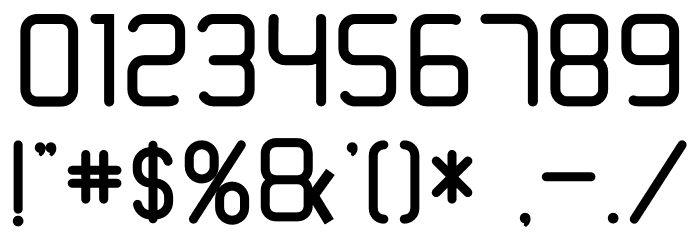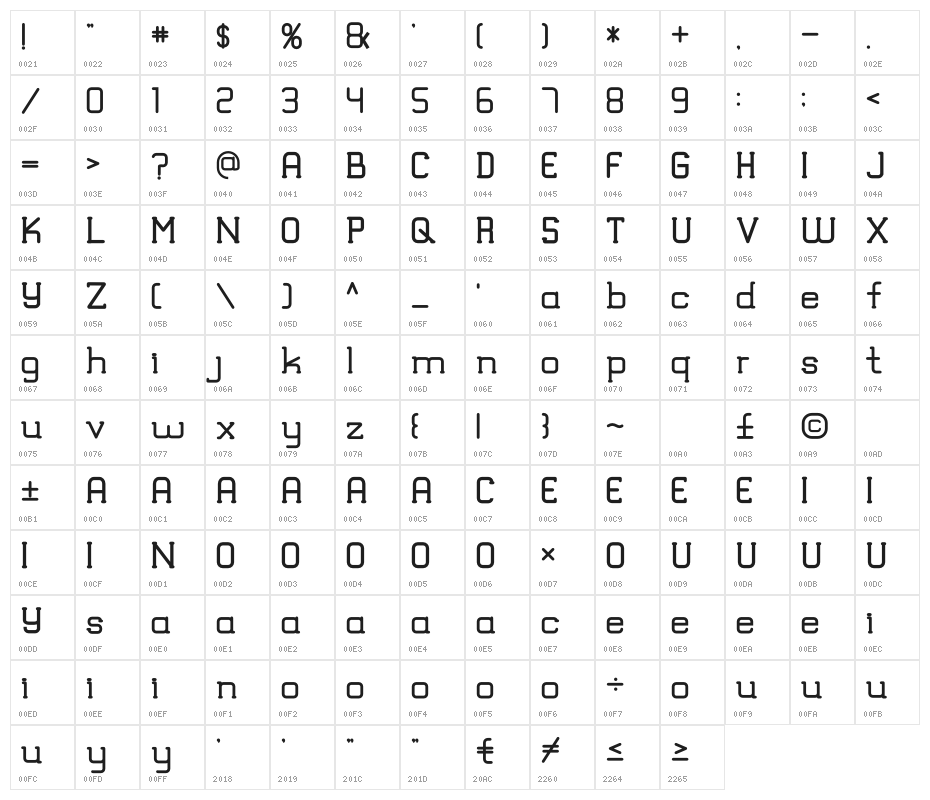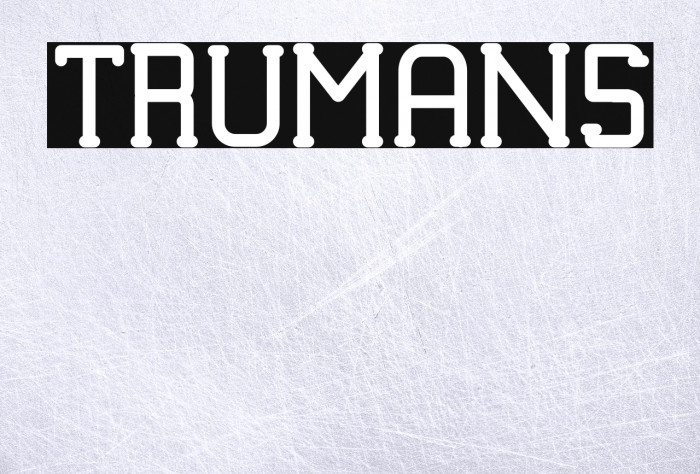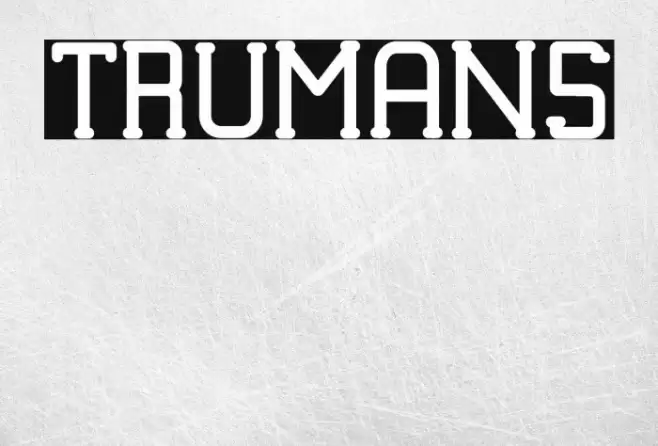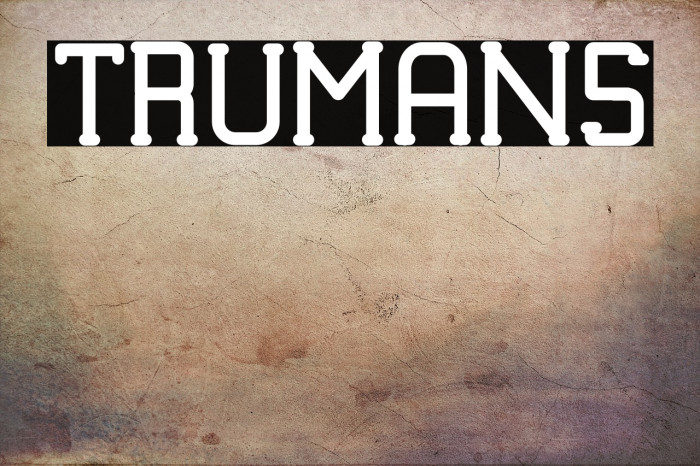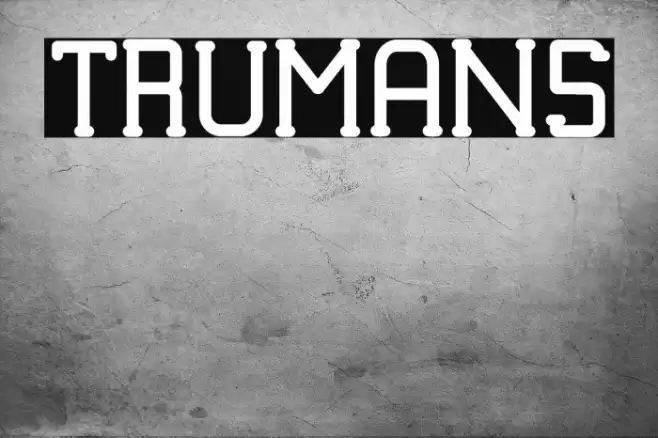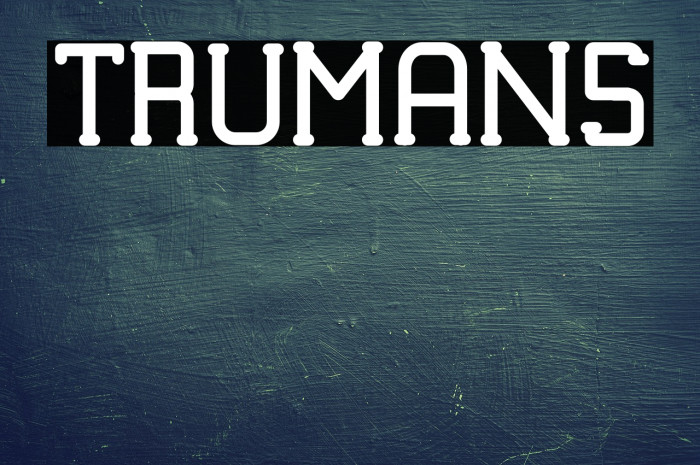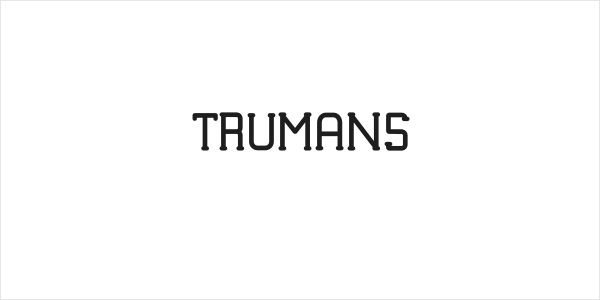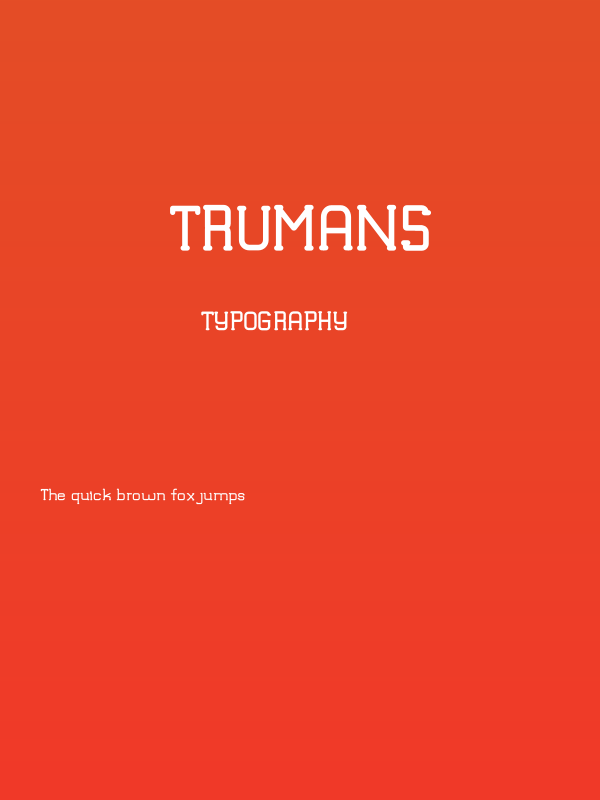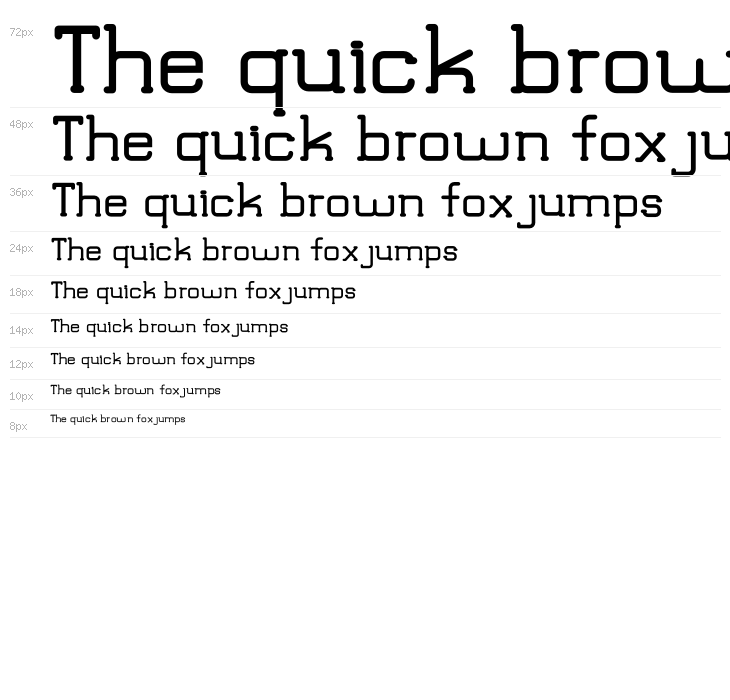
TRUMANS Font
TRUMANS Description
This font features a unique blend of modern and vintage aesthetics, characterized by its rounded corners and monospaced design. The uppercase letters are bold and structured, while the lowercase letters maintain a consistent height, offering a clean and organized appearance. The numerals are distinct and easily readable, making them suitable for various applications. Special characters are well-defined, adding to the font's versatility. The overall design is both functional and stylish, making it ideal for projects that require a contemporary yet timeless look.
| Use Case | Headlines, Body text, Logos, Coding |
| Proposed Projects | Ideal for coding environments, technical documentation, branding, and modern web design. |